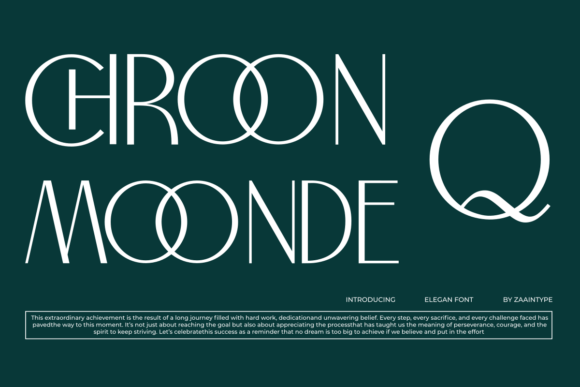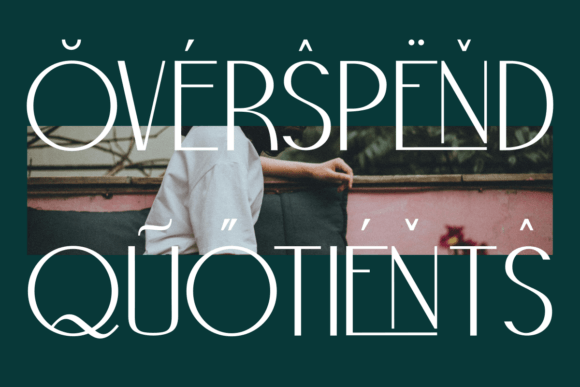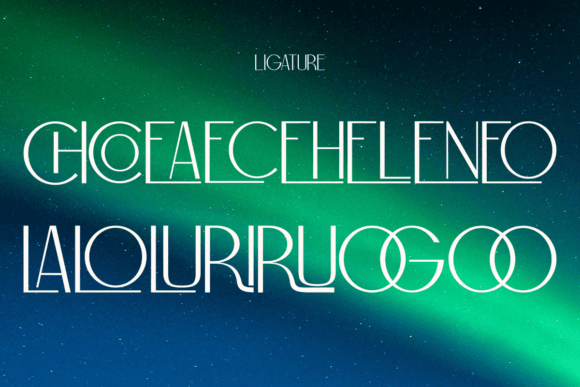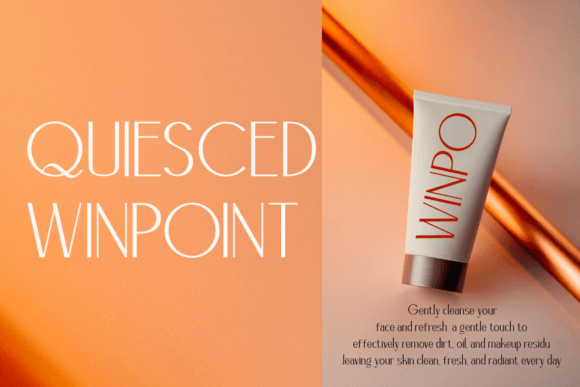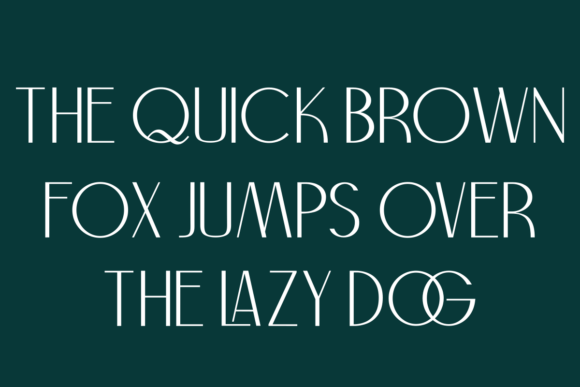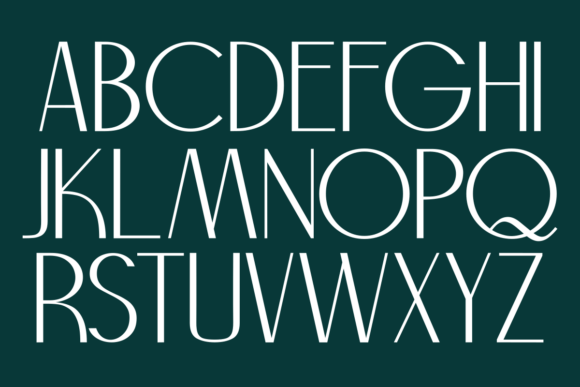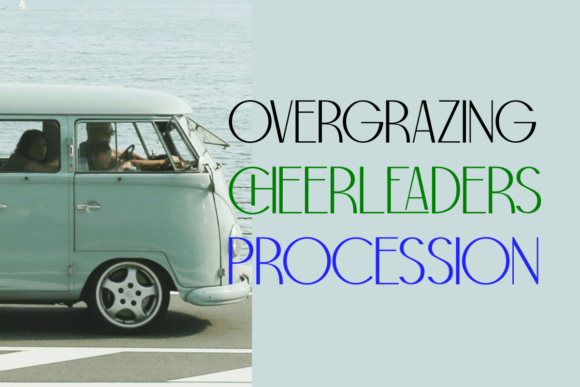
Unleash the Future with Chroon Moonde Font
Have you ever stared at a blank page, eager to bring a creative idea to life, but unsure of the right font to use? This is where the magic happens – where the perfect combination of style and functionality can make all the difference. For designers seeking to create a modern, clean, and futuristic look, the answer lies in the sleek and sophisticated Chroon Moonde Font.
This exceptional sans-serif font boasts smooth curves and precise letterforms, delivering a professional yet fresh impression that’s sure to captivate audiences. Whether you’re working on a branding project, designing a website, or crafting a marketing campaign, the Chroon Moonde Font is an invaluable asset for any visual endeavor.
Key Features of Chroon Moonde Font
- Font Family: Chroon Moonde is a sans-serif font family, designed to be clean, modern, and highly legible.
- Unique Characteristics: Chroon Moonde features a distinctive, rounded sans-serif design with subtle variations in letterform width, giving it a friendly and approachable feel.
Chroon Moonde Font Review
Overall, I have mixed feelings about the “Chroon Moonde Font”. Here are my thoughts:
- The font has a unique and interesting design. It’s perfect for those looking for something a bit different from the usual sans-serif fonts.
- The font is well-structured, with clear and consistent letterforms.
- It supports a wide range of languages, making it a great option for multilingual projects.
- The font’s readability can be a concern, especially at smaller font sizes. The letters can get a bit too thin and fragile.
- The font lacks a clear bold weight, which can make it difficult to create emphasis in text.
- The font’s design may not be suitable for all types of projects, particularly those requiring a more traditional or formal look.
Overall, I think the “Chroon Moonde Font” is a solid choice for those looking for a unique and modern font. However, it may not be the best option for projects that require high readability or traditional typography.
Tips for Getting the Most Out of the Chroon Moonde Font
The Chroon Moonde Font is ideal for creating unique and eye-catching designs. Here are some tips for getting the most out of it:
- Combine the Chroon Moonde Font with other fonts for a unique look.
- Use the font for headings and titles to create a bold and striking design.
- Minimalist backgrounds to let the font take center stage.